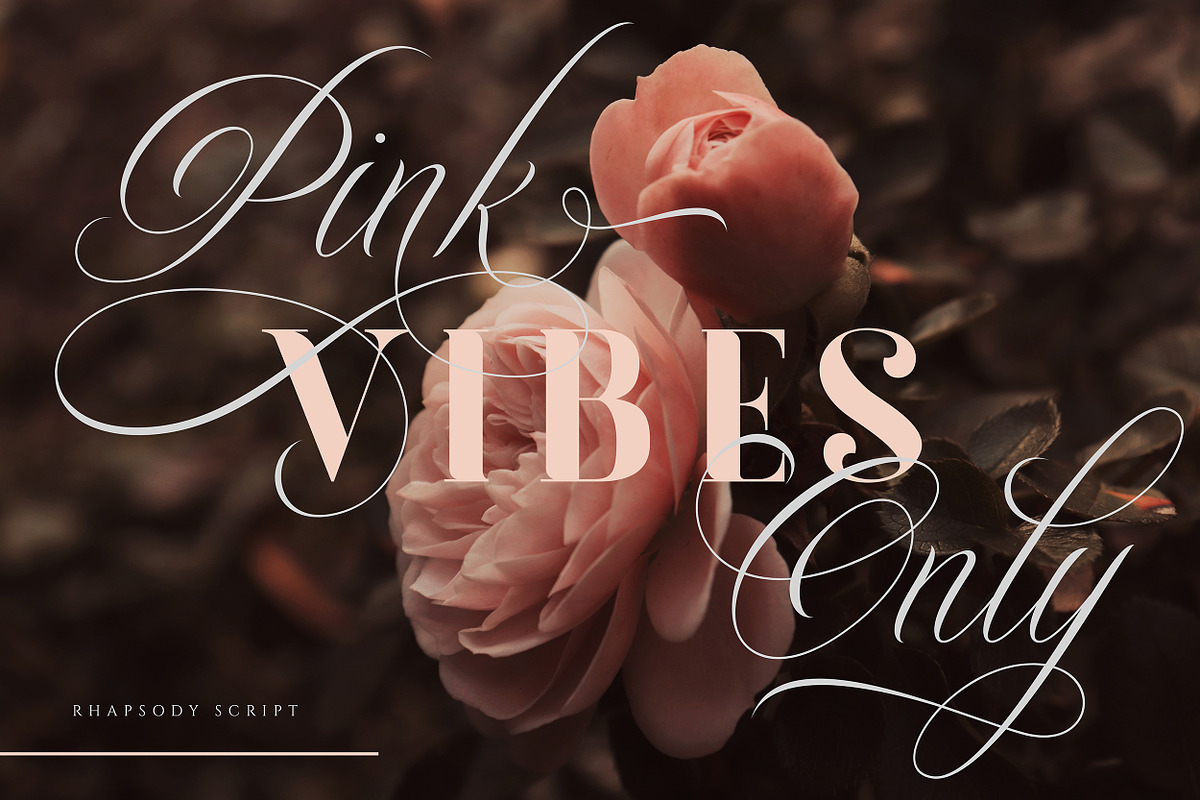
Rhapsody is a calligraphy script font. Rhapsody includes uppercase and lowercase letters, numerals, a large range of punctuation and ligatures. All lowercase letters include ending swashes and alternative font.